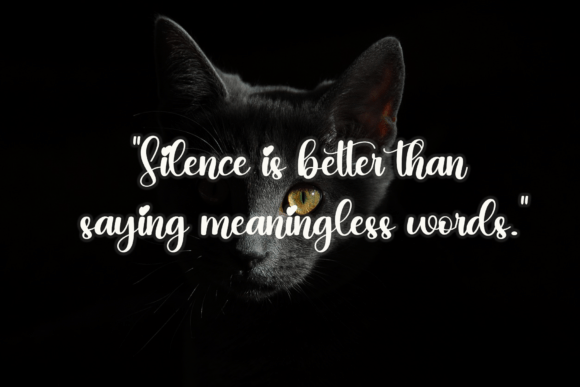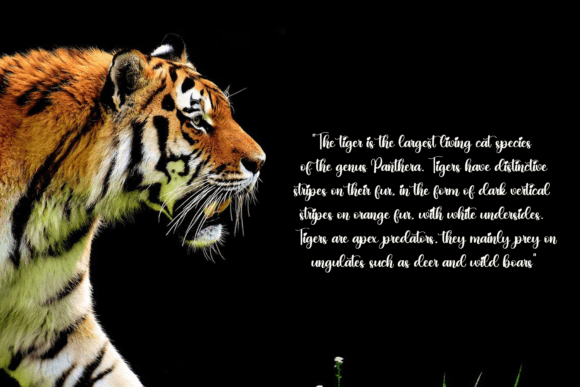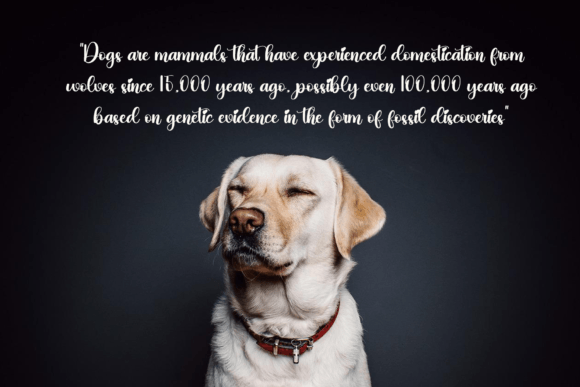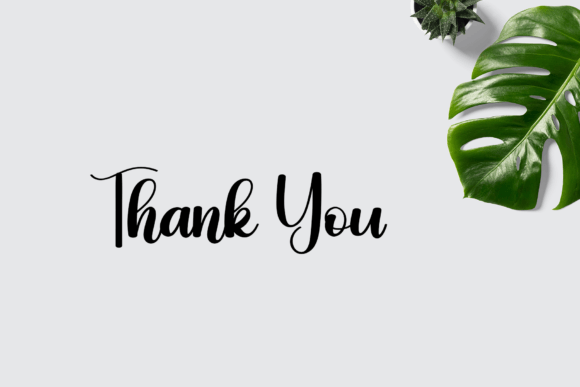
Introducing Animal Font: The Elegant and Feminine Typeface for Your Creative Projects
Are you a designer or crafter looking for a typeface that exudes elegance and femininity? Look no further than Animal Font, a beautiful and versatile typeface perfect for a wide range of creative projects. From wedding stationery and invitations to florists, packaging, and social media posts, Animal Font is the ideal choice for adding a touch of sophistication and charm to your designs.
What is Animal Font?
Animal Font is a carefully crafted typeface designed to meet the needs of designers and crafters who require a high level of elegance and femininity in their work. With its delicate lines, subtle curves, and refined aesthetic, Animal Font is sure to impress. Whether you’re working on a wedding invitation, a social media post, or a packaging design, this typeface is guaranteed to add a touch of class and sophistication.
Key Features of Animal Font
So, what makes Animal Font so special? Here are just a few of its key features:
- Elegant and feminine design: Animal Font boasts a delicate and refined aesthetic that’s perfect for designs that require a touch of sophistication.
- Versatile: This typeface is suitable for a wide range of creative projects, from wedding stationery and invitations to florists, packaging, and social media posts.
- Easy to read: Despite its elegant design, Animal Font is easy to read, making it perfect for use in both print and digital designs.
- High-quality: Animal Font is a high-quality typeface designed to deliver exceptional results in your designs.
Why Choose Animal Font?
So, why should you choose Animal Font for your creative projects? Here are just a few compelling reasons:
- Add a touch of elegance: With Animal Font, you can add a touch of elegance and sophistication to your designs, making them stand out from the crowd.
- Perfect for wedding and floral designs: This typeface is ideal for wedding stationery, invitations, and floral designs, where elegance and femininity are essential.
- Versatile and flexible: Animal Font can be used in a wide range of creative projects, from print to digital designs.
How to Use Animal Font in Your Designs
Using Animal Font in your designs is easy. Here are just a few tips to get you started:
- Pair it with other fonts: Animal Font pairs well with other fonts, so feel free to experiment with different combinations to create a unique look.
- Experiment with colors: This typeface looks great in a range of colors, from soft pastels to bold brights.
- Use it in print and digital designs: Animal Font is suitable for use in both print and digital designs, making it a versatile addition to your font library.
In conclusion, Animal Font is a beautiful and versatile typeface that’s perfect for designers and crafters who require a high level of elegance and femininity in their work. With its delicate lines, subtle curves, and refined aesthetic, this typeface is sure to impress. Whether you’re working on a wedding invitation, a social media post, or a packaging design, Animal Font is the ideal choice for adding a touch of sophistication and charm to your designs.